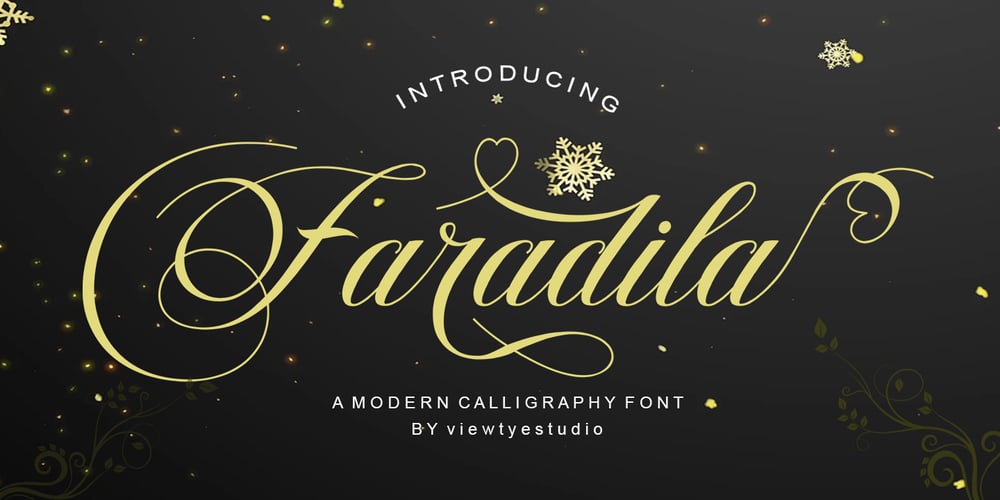
Faradila Font Family was designed by Fajri and published by viewtype. Faradila contains 1 styles and family package options. Faradila is a modern calligraphic script, with each letter having been carefully designed to make your text look beautiful. With its modern script style, this font will be suitable for various projects, for example: invitations, greeting cards, posters, business cards, quotes, blog titles, branding, logos, fashion, clothing, letters, stationery, and more.Faradila comes with alternative characters which are divided into a number of OpenType features, Style Collections, Alternative Styles, Contextual Alternatives. The OpenType feature can be accessed by using OpenType savvy programs such as Adobe Illustrator, Adobe InDesign, Adobe Photoshop Corel Draw X version, and Microsoft Word. And this font has provided a Unicode PUA (special code font) so all alternative characters can be easily accessed in full by craftsmen or designers.Faradila includes Uppercase, Lowercase, International Language Support, Punctuation, Numbers, Standard Stylistic and Alternative Stylistic Sets 1-30, and Contextual Character Variants. If you don’t have a program that supports OpenType features like Adobe Illustrator and CorelDraw X Version, you can access all alternative glyphs using Font Book (Mac) or Character Map (Windows).